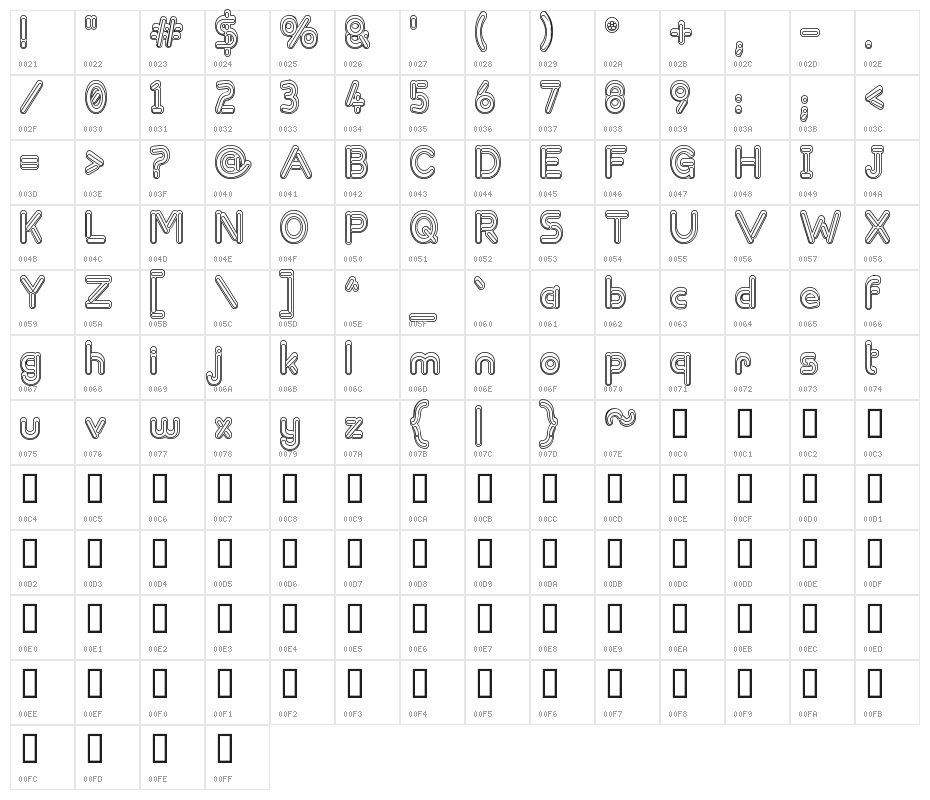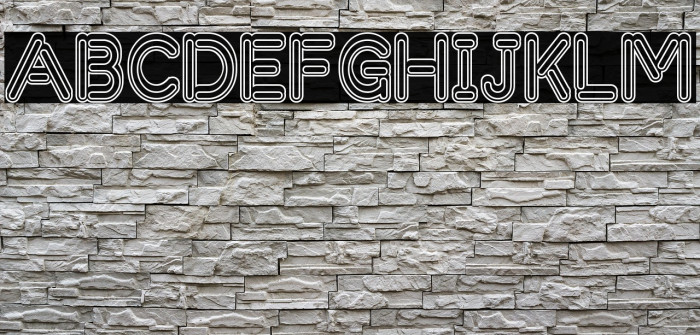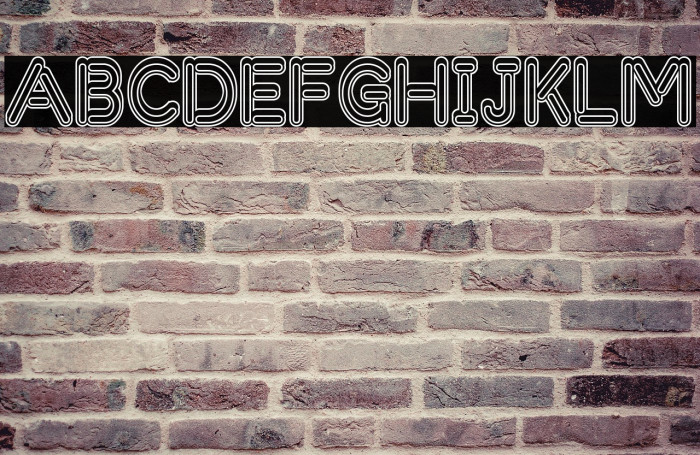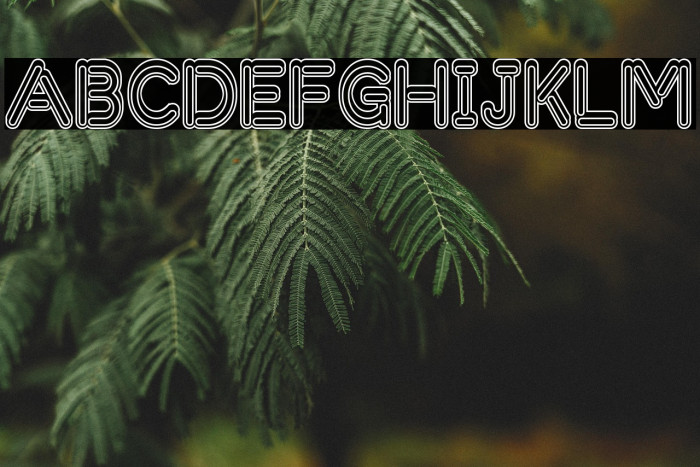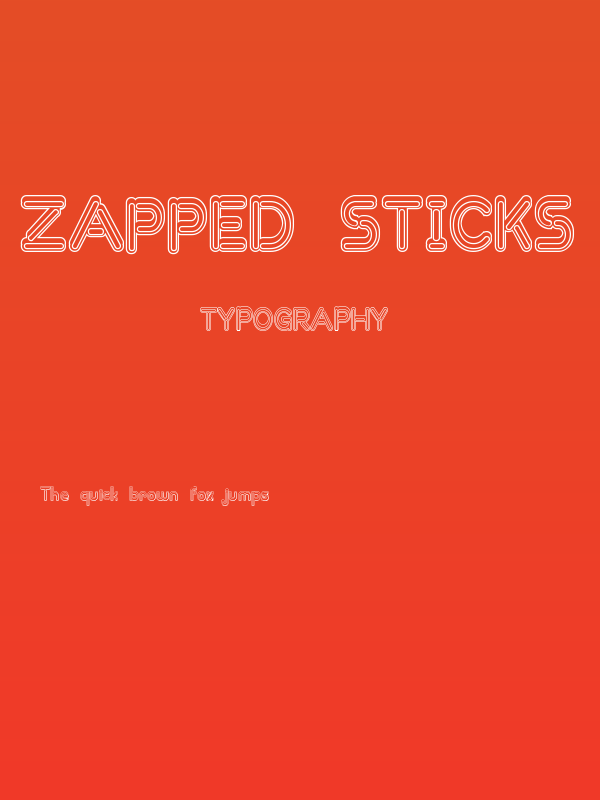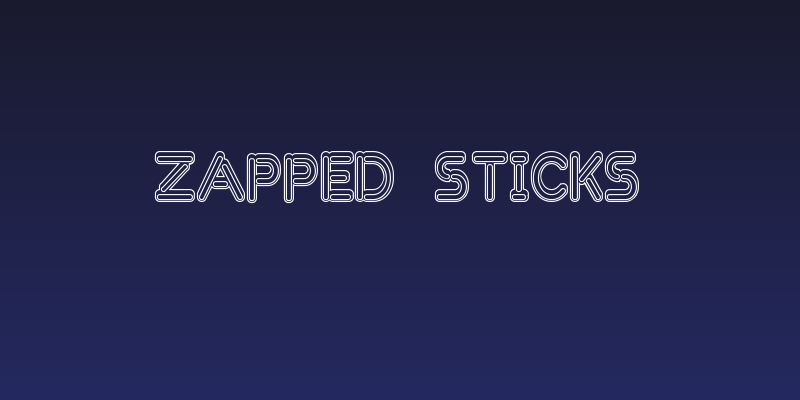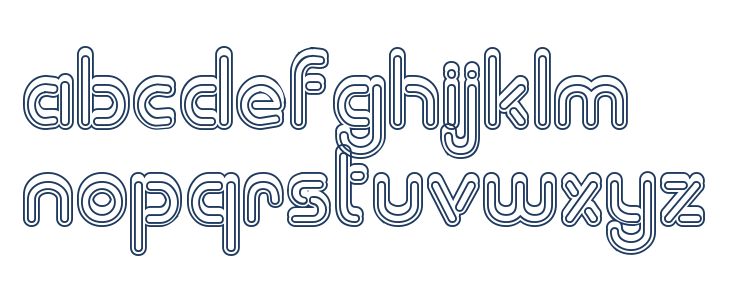
Zapped Sticks Font
Zapped Sticks Description
This font features a bold, playful design with a triple-line structure that creates a striking, outlined effect. Each character is composed of three parallel lines that form a unique, layered appearance, giving it a sense of depth and dimension. The font maintains a consistent thickness throughout, contributing to its bold and eye-catching style. The rounded edges and smooth curves add a friendly and approachable feel, making it suitable for creative and informal applications. The uppercase and lowercase letters are well-balanced, and the numerals and special characters are designed to match the overall aesthetic, ensuring versatility across different uses.
| Proposed Projects | Ideal for posters, logos, children's books, and playful branding projects. |